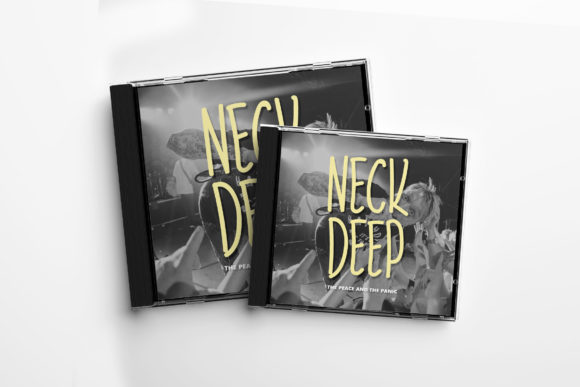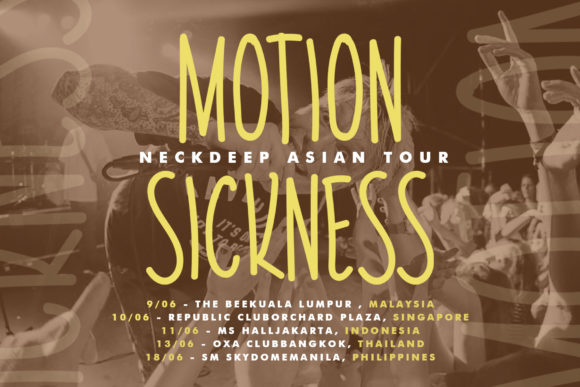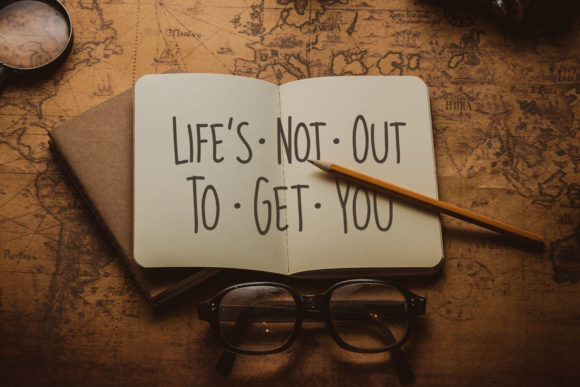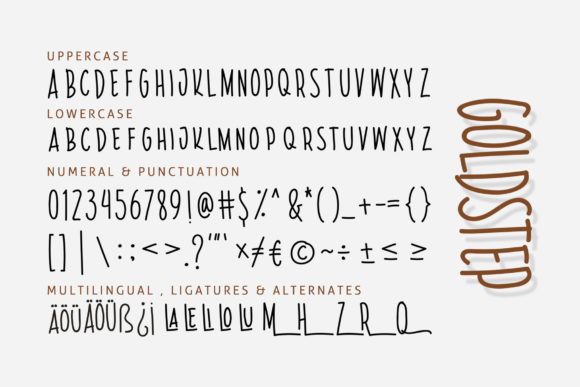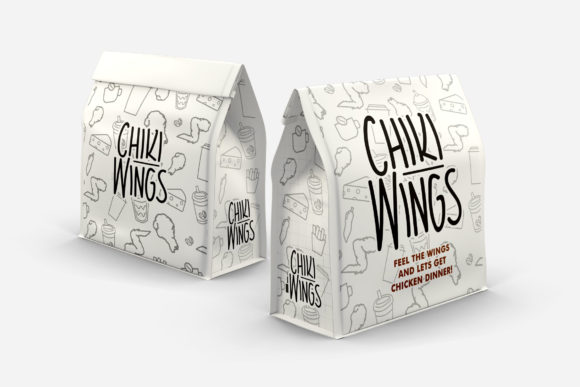
Goldstep Font
About Goldstep Font
Goldstep is a tall lettered, simple handwritten font. Its natural and unique style makes it incredibly fitting to a large pool of designs. The only limit is your imagination!